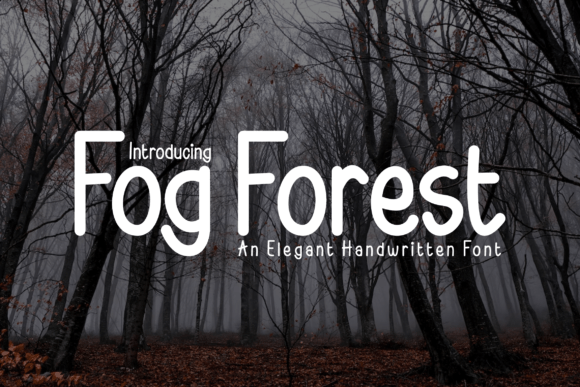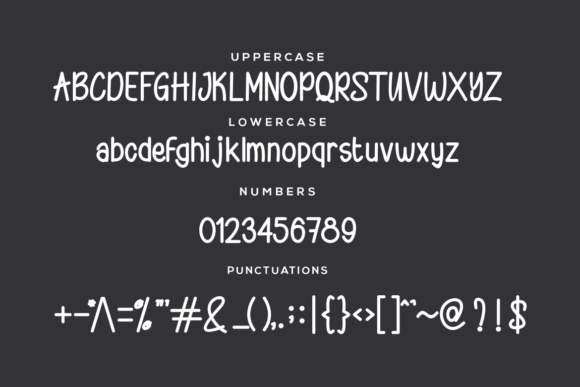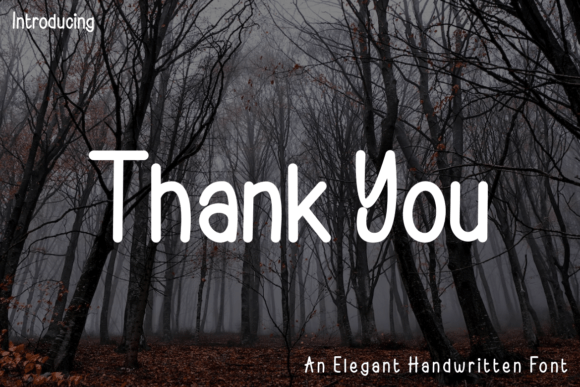
Fog Forest Font
About Fog Forest Font
**Flog Forest**: *Where Neatness Meets Playfulness*
Flog Forest isn’t just a font; it’s a delightful blend of neatness and playfulness, meticulously designed to be the perfect choice for a wide range of creative endeavors. Whether you’re working on cartoon-related designs, children’s games, or any creation that requires a lovely touch, this handwritten font is an amazing choice that effortlessly combines a sense of order with a sprinkle of whimsy.
What sets Flog Forest apart is its remarkable ability to effortlessly infuse a sense of playfulness and neatness into your designs while maintaining a friendly and approachable vibe. The font’s playful characters bring a sense of joy and creativity to your projects, making it an ideal choice for various creative applications. Flog Forest has the power to add a delightful touch to your creations, making them more engaging and memorable.
Flog Forest strikes the perfect balance between a fresh aesthetic and a friendly demeanor, making it a versatile and heartwarming choice for projects that aim to engage and delight.
In cartoon-related designs and children’s games, Flog Forest adds a layer of personality and fun, making them even more enjoyable and memorable. For various creative projects, from posters to social media graphics, the font’s friendly appeal enhances user engagement and adds a touch of whimsy. Whether you’re working on branding materials or any other visual content, Flog Forest brings an air of creativity and approachability to your projects.
One of Flog Forest’s most remarkable qualities is its adaptability. It can transition seamlessly from a casual and relaxed tone to a more lively and spirited one, making it suitable for a wide range of creative applications. Its ability to evoke playfulness ensures that it remains a cherished choice for designers and creators across diverse industries.
In summary, Flog Forest is more than just a font; it’s a design asset that skillfully combines neatness with playfulness. Its unique blend of playful characters and creative charm positions it as an indispensable tool for anyone seeking to add a touch of order and whimsy to their visual communication. Embrace the neatness and playfulness of Flog Forest, and watch your designs come to life with joy and creative flair, making it the perfect choice for any project that requires a lovely touch!